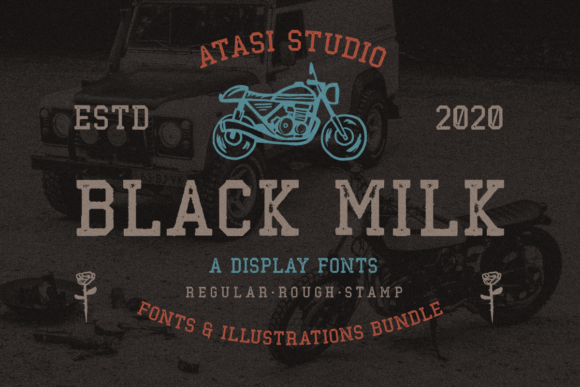
Introducing Black Milk Font: A Unique Display Font for Creative Designs
Are you a designer or crafter looking for a font that can add a touch of uniqueness to your creative projects? Look no further than the Black Milk Font! This display font is a game-changer, offering a perfectly balanced mix of smooth and sharp elements that will complement any design need. In this article, we’ll dive into the features and benefits of the Black Milk Font, and explore how it can elevate your designs to the next level.
What is Black Milk Font?
Black Milk Font is a distinctive display font that comes in two versions: a rough version and a stamp version. This dual offering provides designers with flexibility and versatility, allowing them to choose the style that best suits their project’s tone and aesthetic. Whether you’re working on a bold and edgy design or a more subtle and elegant one, Black Milk Font has got you covered.
Key Features of Black Milk Font
- Unique Design: Black Milk Font boasts a one-of-a-kind design that sets it apart from other fonts. Its rough and stamp versions offer a refreshing alternative to traditional fonts.
- Perfectly Balanced: The font’s smooth and sharp elements are expertly balanced, creating a visually appealing contrast that adds depth and interest to any design.
- Display Font: Black Milk Font is specifically designed as a display font, making it perfect for headlines, titles, and other attention-grabbing elements.
- Versatile: This font can be used in a wide range of design projects, from branding and advertising to packaging and digital media.
Benefits of Using Black Milk Font
So, why should you choose Black Milk Font for your design projects? Here are just a few benefits of using this unique font:
- Adds Visual Interest: Black Milk Font’s distinctive design and perfectly balanced mix of smooth and sharp elements add visual interest to any design, making it more engaging and attention-grabbing.
- Enhances Creativity: With its unique rough and stamp versions, Black Milk Font offers designers a fresh and creative way to express themselves and bring their ideas to life.
How to Use Black Milk Font in Your Designs
Using Black Milk Font in your designs is easy! Here are a few tips to get you started:
- Pair it with Other Fonts: Black Milk Font pairs well with a range of other fonts, from serif and sans-serif fonts to script and decorative fonts.
- Experiment with Colors: Try using Black Milk Font in different colors and textures to add depth and interest to your design.
- Use it for Headlines and Titles: Black Milk Font is perfect for headlines and titles, where its bold and attention-grabbing design can really shine.
In conclusion, Black Milk Font is a unique and versatile display font that offers designers and crafters a fresh and creative way to express themselves. With its perfectly balanced mix of smooth and sharp elements, and its rough and stamp versions, this font is sure to complement any design need perfectly. Whether you’re working on a bold and edgy design or a more subtle and elegant one, Black Milk Font is an excellent choice. So why wait? Download Black Milk Font today and take your designs to the next level!